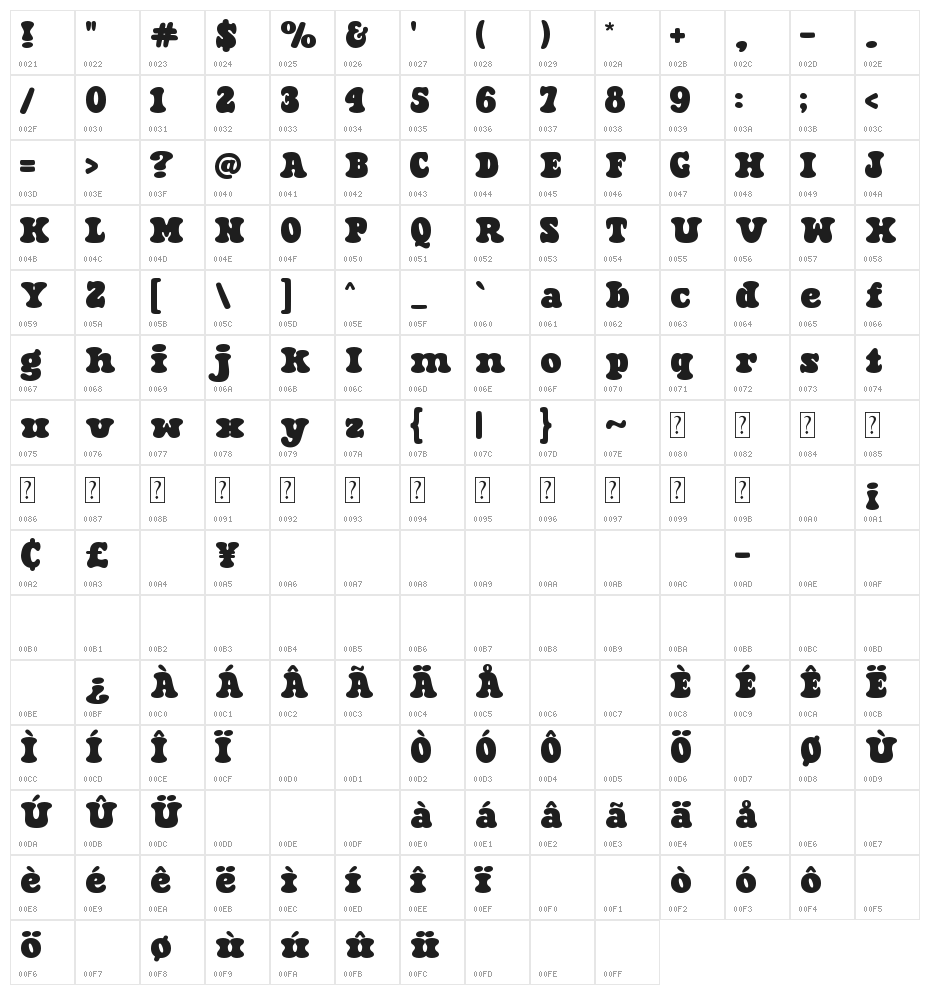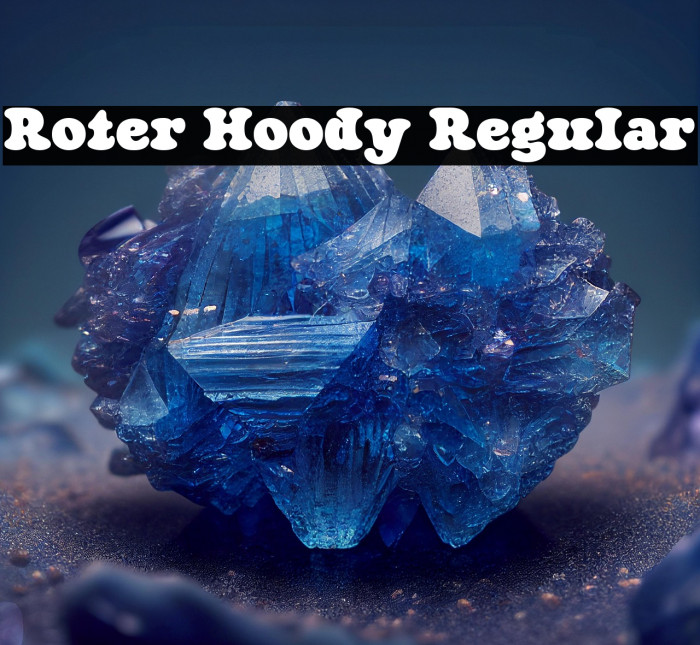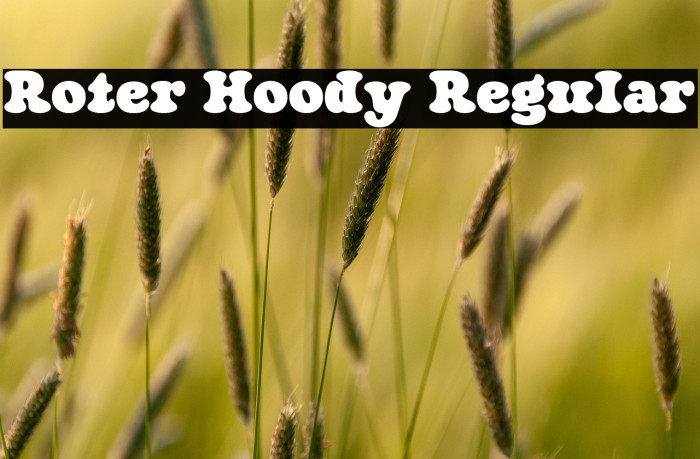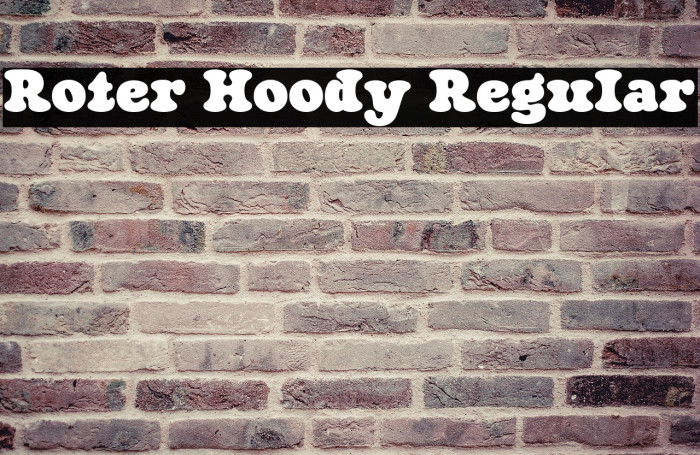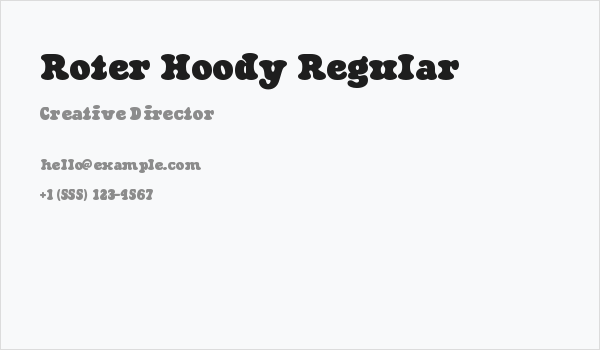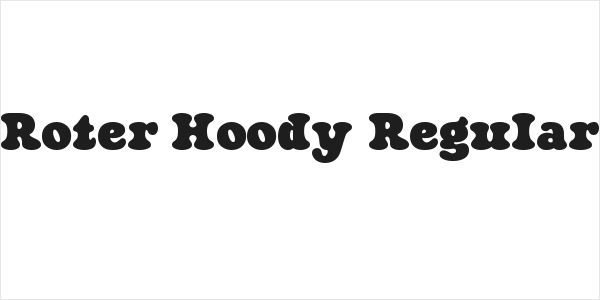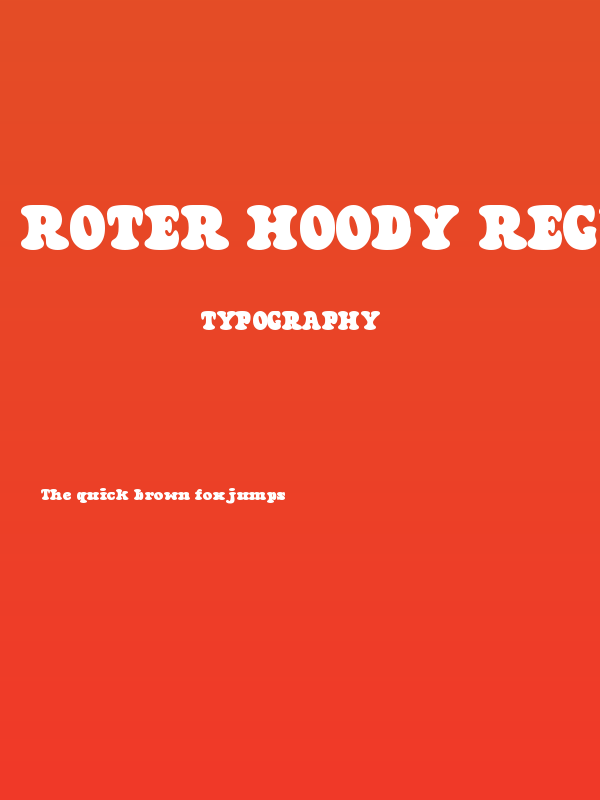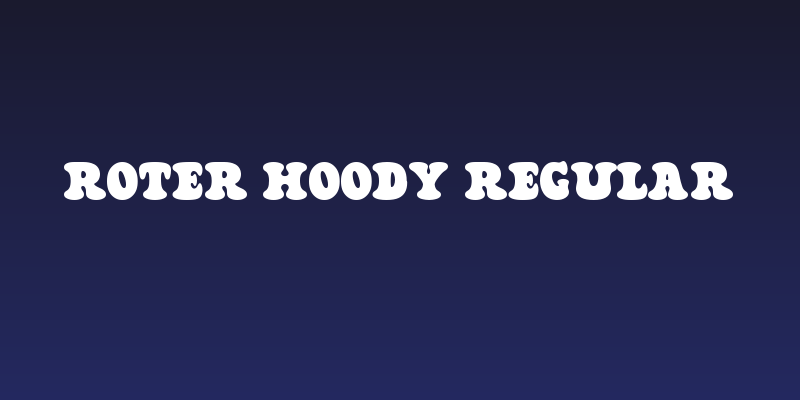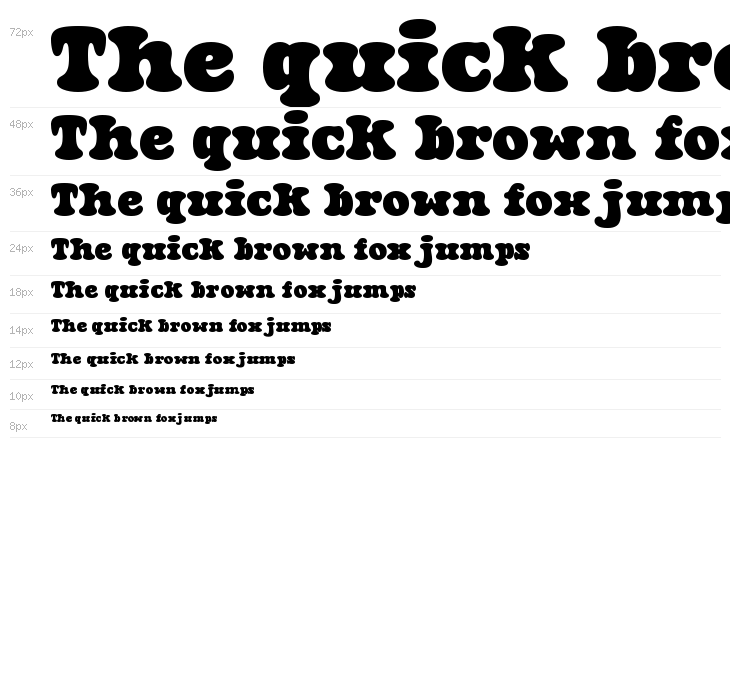
Roter Hoody Regular Font
Roter Hoody Regular Description
This font features a bold and playful design with rounded, bubbly characters that exude a sense of fun and whimsy. The letters are thick and have a consistent weight throughout, giving them a strong presence on the page. The rounded edges and smooth curves contribute to a friendly and approachable aesthetic. The font maintains a uniform width, ensuring a balanced and cohesive look across all characters. Its distinctive style makes it ideal for projects that require a touch of creativity and personality. The spacing between characters is tight, which enhances the compact and robust appearance of the text.
| Proposed Projects | Ideal for children's books, playful branding, posters, and creative advertising. |